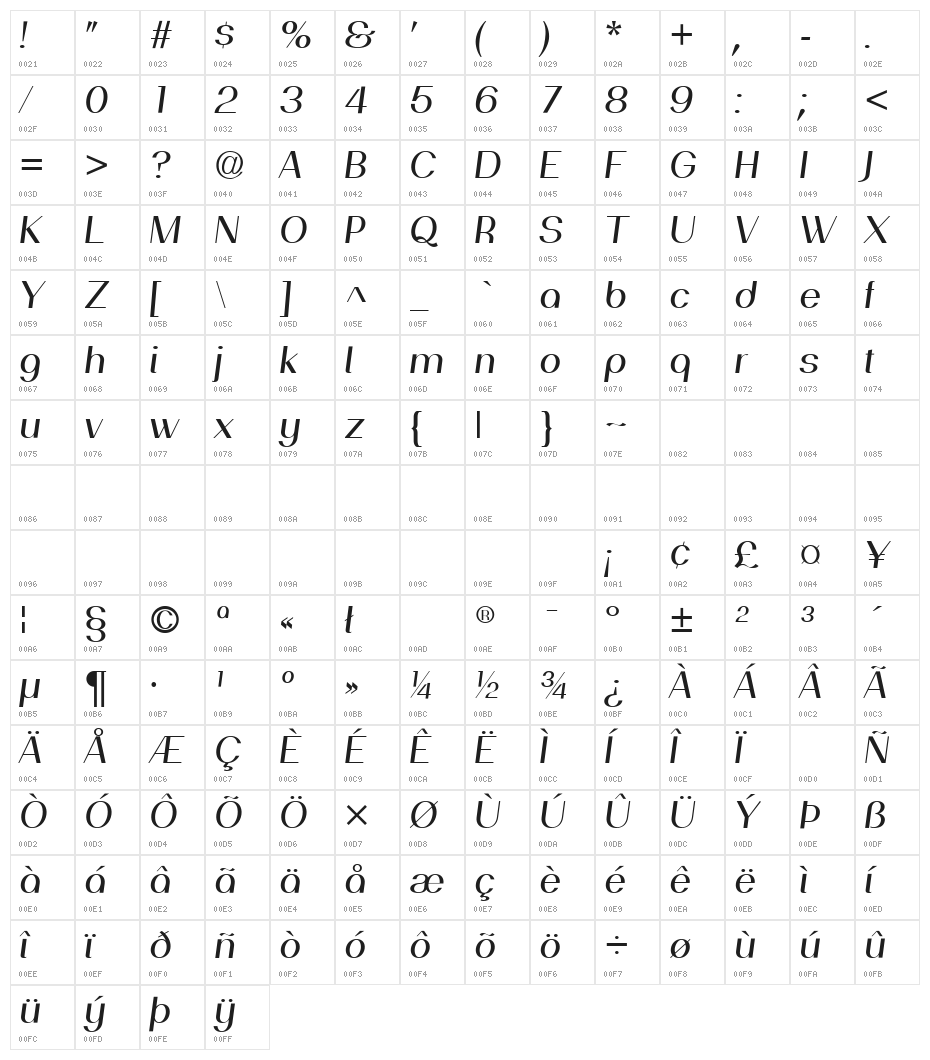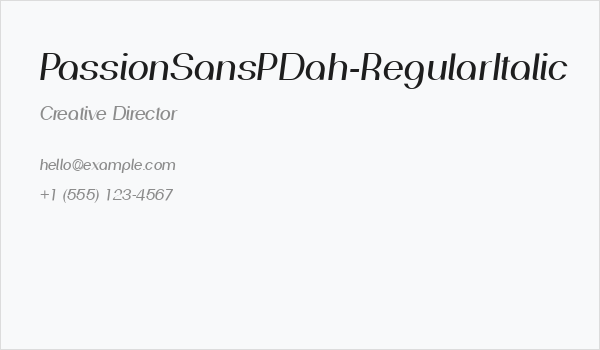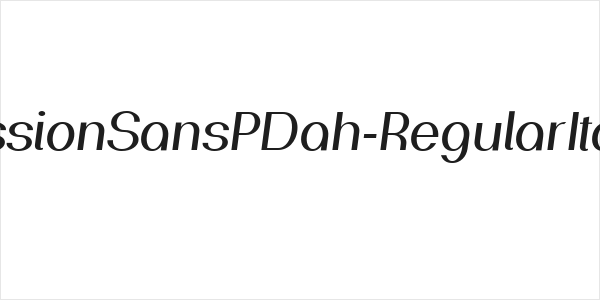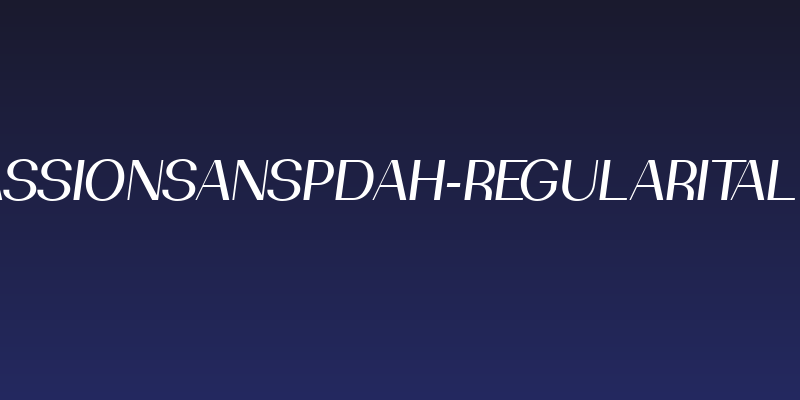
PassionSansPDah-RegularItalic Font
PassionSansPDah-RegularItalic Description
This font features a sleek and modern design with a slight italic slant, giving it a dynamic and forward-moving appearance. The characters are clean and sans-serif, providing a contemporary look that is both professional and approachable. The uppercase letters are tall and elegant, while the lowercase letters maintain a consistent style that complements the overall aesthetic. The numerals are clear and easy to read, making them suitable for a variety of applications. Special characters are well-defined, adding versatility to the font's usage. The overall design is balanced, with a medium contrast in stroke thickness that enhances readability without sacrificing style.
| Proposed Projects | Ideal for branding, advertising, digital media, and editorial design projects. |